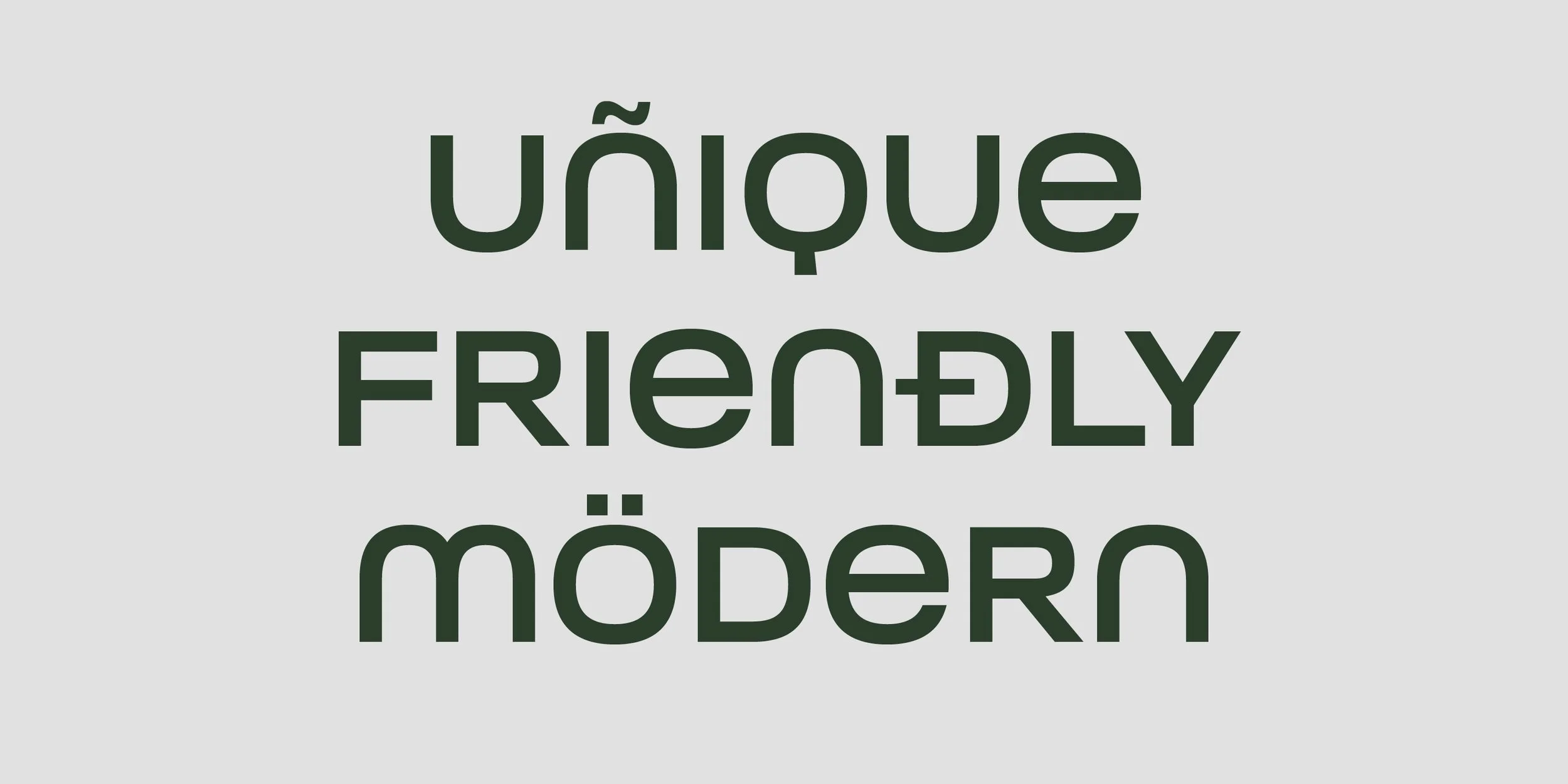
Toroka
Toroka is a geometric sans serif type family with an extensive selection of styles, from Thin to Black and Condensed to Wide. Functional and highly legible, it has a friendly vibe due to the lack of extending stems on "b", "d", "p", "q", "u", and "r". Its distinctive personality comes across through the rounded apexes of "V", "W", "v", and "w". Stylised "g" and "y" add sugar and spice. The additional stylistic set offers an eccentric display alternative to the uppercase. Opentype features include: ligatures, tabular figures, fractions, and language support for extended Latin and Cyrillic.